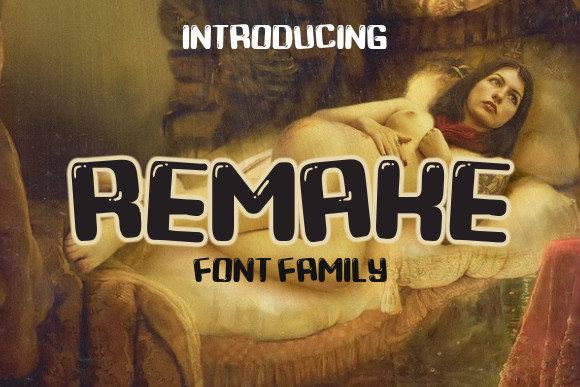
Embracing Uniqueness: Unleash the Playful Charm of Remake Font - Crafted for Children's App Magic
In the world of digital creations, children's apps hold a special allure—a captivating blend of education and entertainment that sparks young imaginations. And just as a storybook illustration brings life to a tale, the font we choose has the power to shape the user's journey.
Introducing Remake Font, a display typeface that's anything but ordinary. With its simple and playful aesthetics, Remake Font opens up a world of limitless possibilities for children's app developers and creative enthusiasts.
Unleash Your Creativity: Explore a Realm of Design Possibilities
With Remake Font as your design companion, let your imagination run wild. From storybooks that ignite dreams to educational games that make learning a joy, this font seamlessly adapts to your creations, adding a touch of whimsy and relatability.
Remake Font: The Perfect Fit for Children's App Success
Go beyond the ordinary and craft digital experiences that truly resonate with your audience—children. Remake Font is not just a font; it's a portal to their world, allowing you to connect with their imagination on a deeper level.
With Remake Font, engage young minds, spark their creativity, and leave a lasting impression. It's the font that speaks their language, transforming the digital world into a magical place where learning is fun, and imagination knows no bounds.
Stand Out from the Crowd: Create Memorable Experiences
In a sea of children's apps, it takes something special to stand out. Remake Font is your secret weapon, setting your creation apart with its unique character.
Craft app experiences that captivate and enthrall, leaving users yearning for more. Remake Font ignites their imagination and takes them on a journey they'll never forget.
Embrace Playfulness and Relatability: Remake Font's Alluring Charm
Remake Font is more than just a font; it's a celebration of playfulness, a nod to the limitless imagination of youth. It's the perfect choice for those who want to create experiences that truly speak to children's hearts.
With Remake Font as your ally, watch as your app transforms into a magical world, where learning comes alive, and every interaction sparks delight.